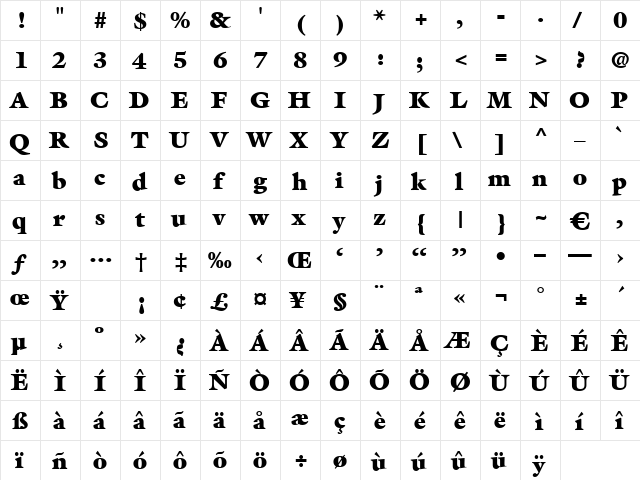
Deventer Regular
Design Context for Deventer Typeface
Deventer offers clean, dependable letterforms without strong stylistic allegiance, making it a practical choice for designers who need flexibility.
Pro Tip: Use Deventer in both headline and body roles to test its range before committing to a single application.